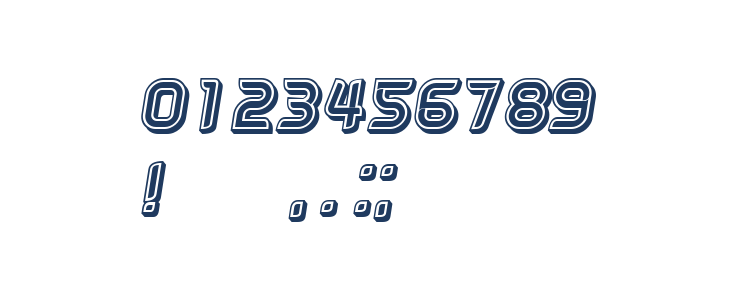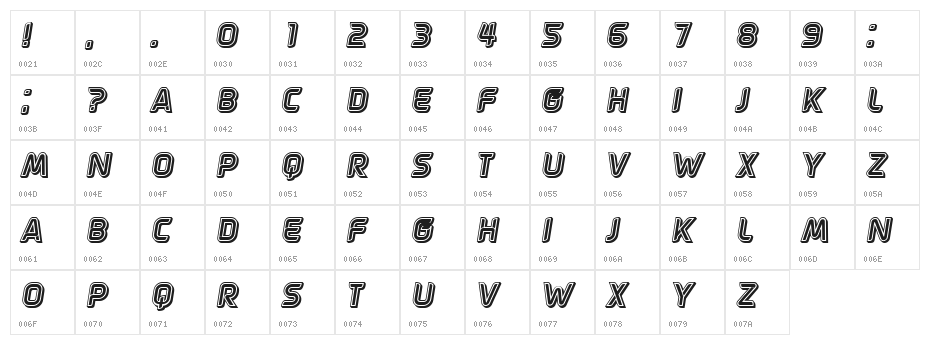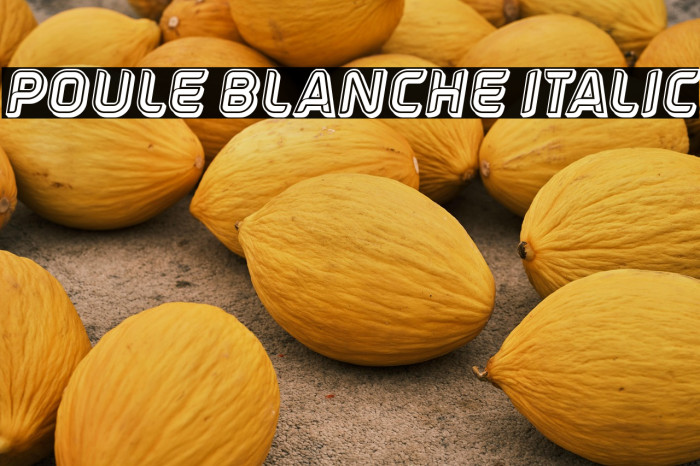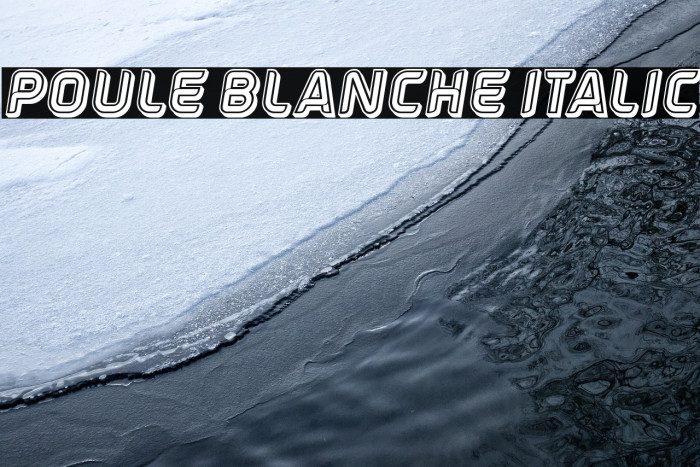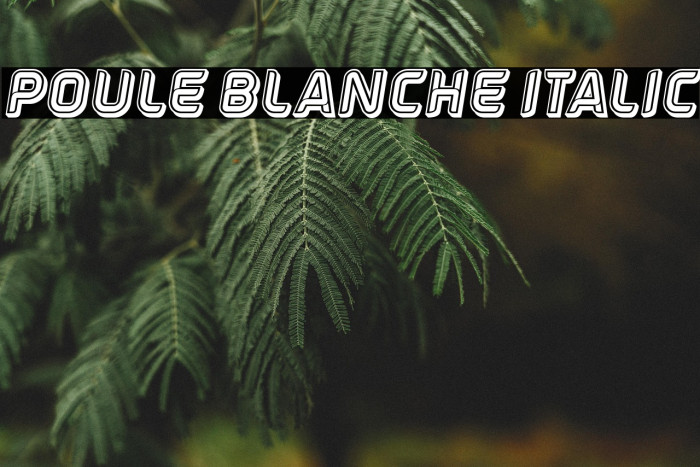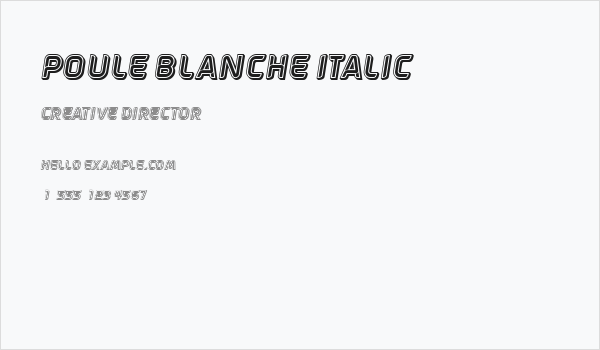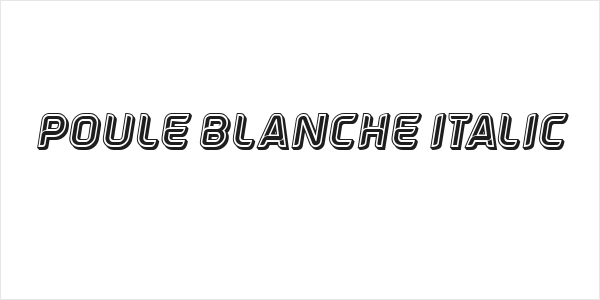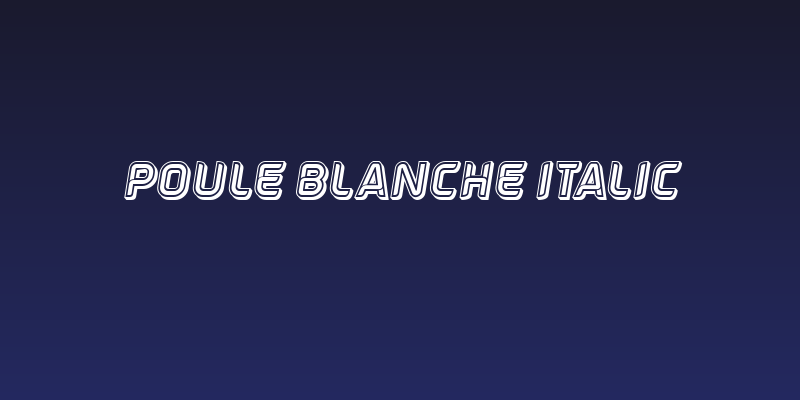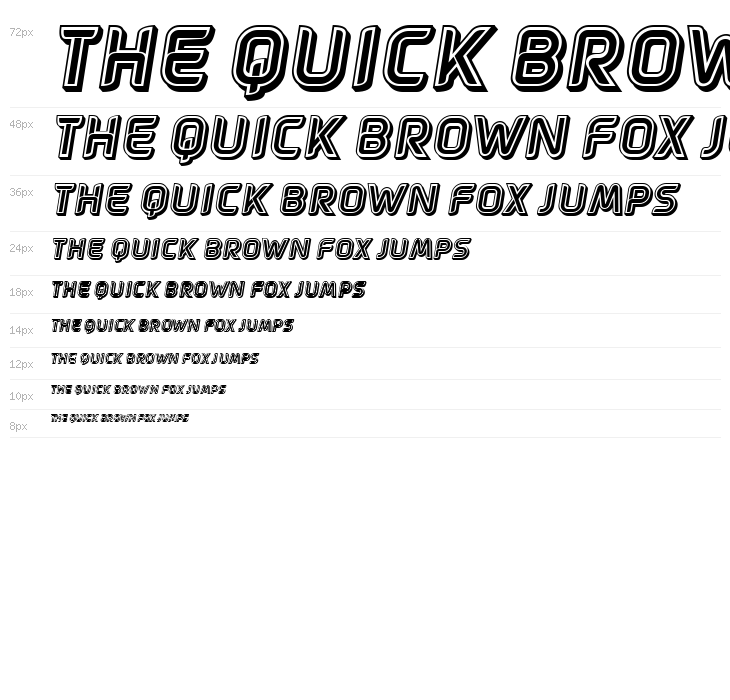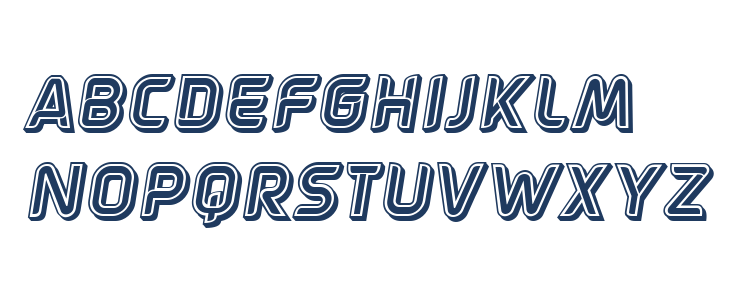
Poule Blanche Italic Font
Poule Blanche Italic Description
This font features a bold, italicized style with a distinct outline that gives it a three-dimensional appearance. The characters are uppercase and lowercase letters, as well as numbers and a few special symbols. The design is modern and dynamic, with a playful yet structured feel. The strokes are consistent in width, and the spacing between characters is normal, allowing for readability while maintaining a unique aesthetic. The outlined effect adds depth, making it suitable for eye-catching designs.
Proposed ProjectsIdeal for posters, headlines, logos, and any design requiring a bold, standout typeface.